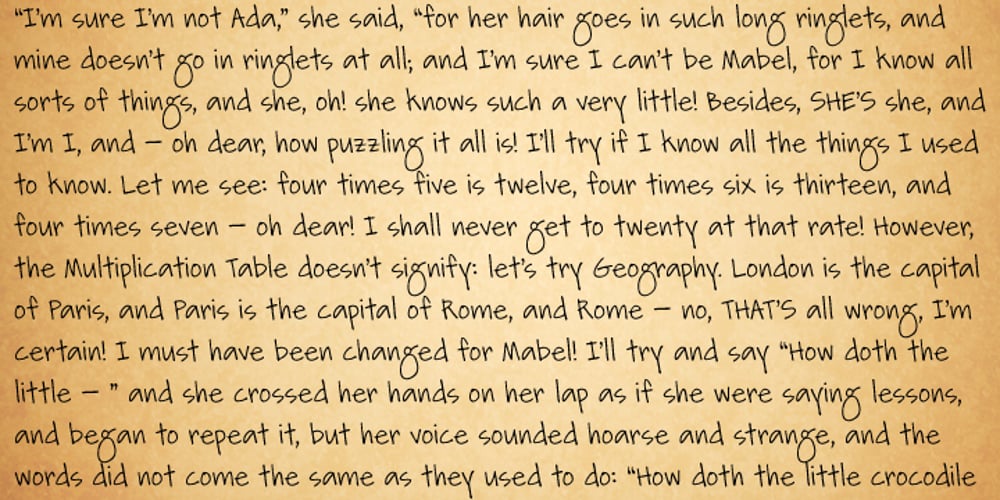
Zurdo Font Family was designed by Alec Julien and published by Haiku Monkey. Zurdo contains 1 styles and family package options. Zurdo is a handwriting font with a unique, left-handed flavor. It can be used large for display purposes, and it also scales down to small sizes beautifully. Put some singular character into your designs!